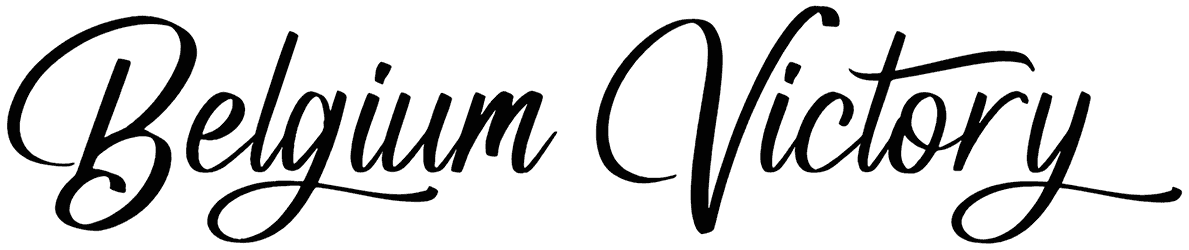
Belgium Victory Font
There is another easier and better way to give your content a stylish and refined look with a fashion magazine font. Belgium Victory is a perfect example, which creates a tasteful effect with slightly bold and curved lines.